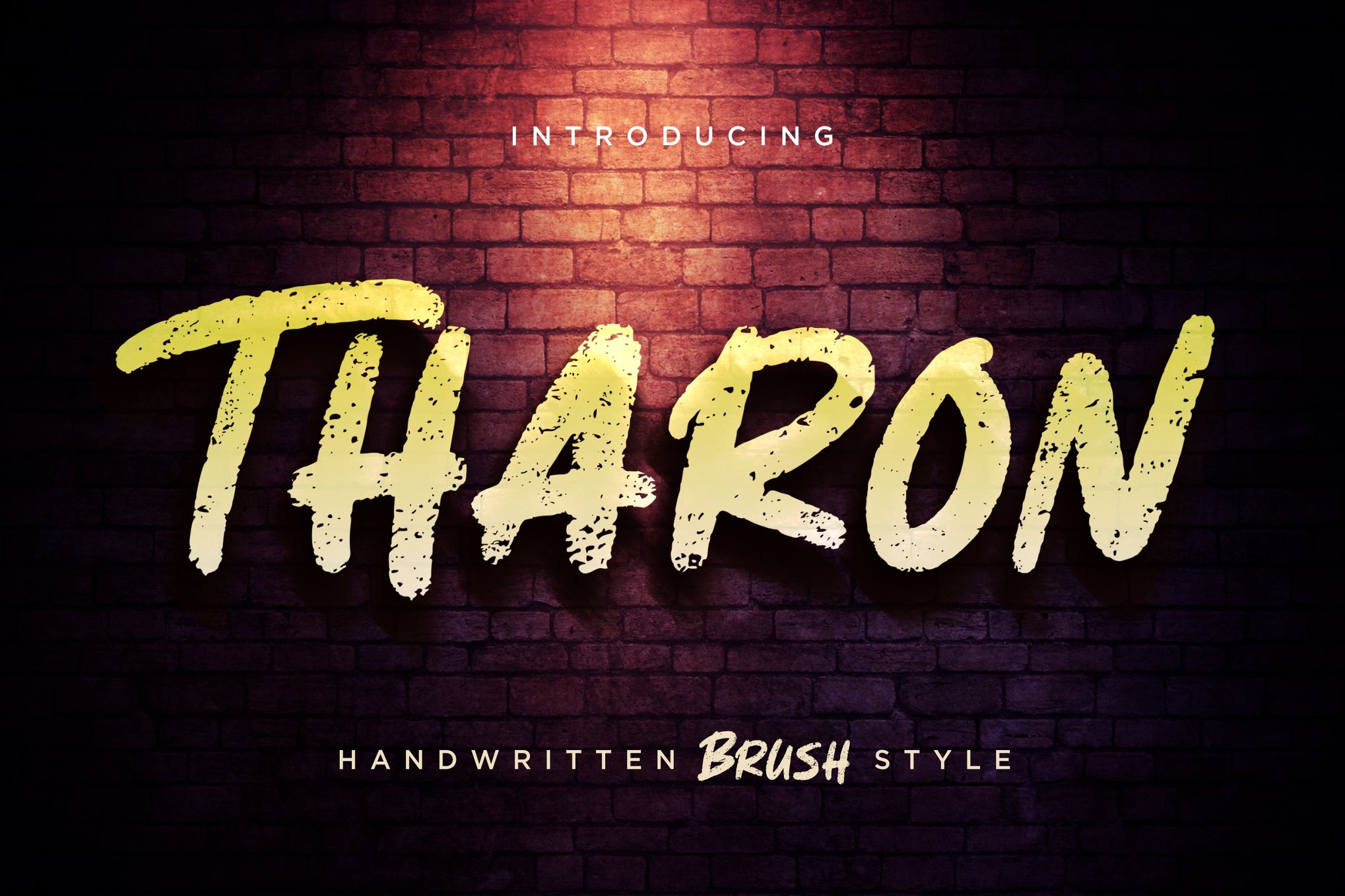
Tharon Brush Business Font
Tharon Brush Business Font is perfect for creative agency branding, artisanal business marketing, handcrafted service communications, authentic restaurant signage, creative consulting materials, artistic workshop identities, boutique retail campaigns, and personalized professional services.
What makes Tharon Brush Business Font exciting is its professionally artistic character that bridges the gap between creative authenticity and business credibility through expertly crafted brush letterforms that maintain the personal touch of handmade quality while delivering the professionalism required for serious business applications. The font features confident brush strokes with business-appropriate details that reflect both creative passion and commercial reliability. Its artistic professionalism and authentic appeal make it perfect for businesses that want to communicate creative expertise, personal attention, and the kind of authentic craftsmanship that sets them apart from corporate competitors while maintaining the credibility necessary for professional success.
Tharon Brush Business Font family includes various professional brush weights such as Light, Regular, Medium, and Bold variations, often featuring business-appropriate alternates and creative decorative elements. The family may include professional symbols, artistic ornaments, and handcrafted ligatures that enhance the font's business aesthetic while preserving its authentic brush character, providing designers with comprehensive options for creating credible typographic compositions that honor both creativity and professionalism.